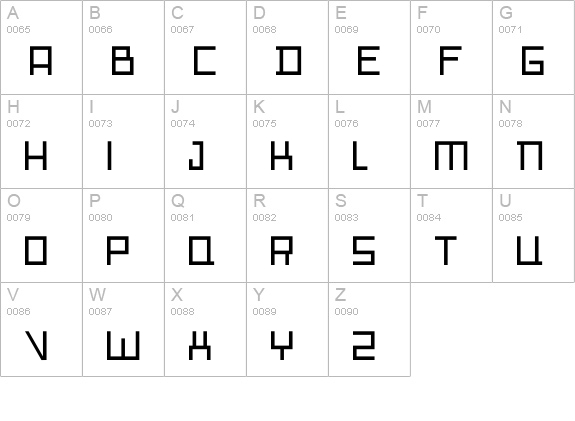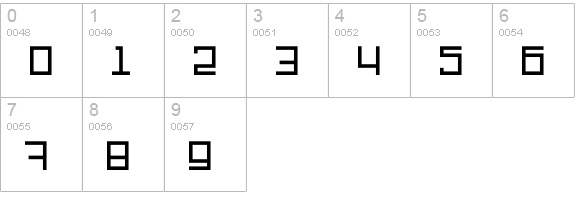
io Font Details
Introducing io font, a stunning and versatile typeface that is sure to elevate any design project! With its sleek and modern design, io font offers a perfect balance between elegance and readability, making it an ideal choice for a wide range of applications. This beautiful font features clean lines and distinct geometric shapes, creating a contemporary look that is both eye-catching and sophisticated. Whether you're designing a logo, creating a poster, or crafting a website, io font will add a touch of professionalism and style to your work. One of the best parts about io font is that it is completely free! Yes, you read that right. This amazing font is freely available to download at FontsMarket.com. Now you can enhance your designs without breaking the bank. With the option to download io font at no cost, you can access this incredible typeface and take your projects to the next level without any barriers. Not only does io font offer a wide range of characters and glyphs, but it also supports multiple languages, making it a global font that can be used across various regions and cultures. Its versatility is unmatched, allowing you to effortlessly convey your message in a visually appealing way. Don't miss out on this fantastic opportunity to enhance your design projects with io font. Download it for free at FontsMarket.com and experience the power of this remarkable typeface. Elevate your designs and captivate your audience with the modern and stylish io font today!